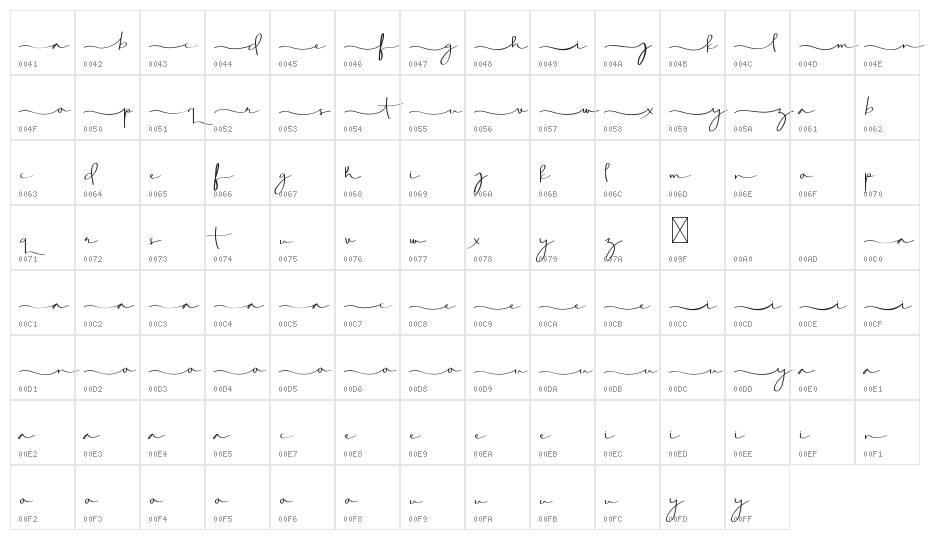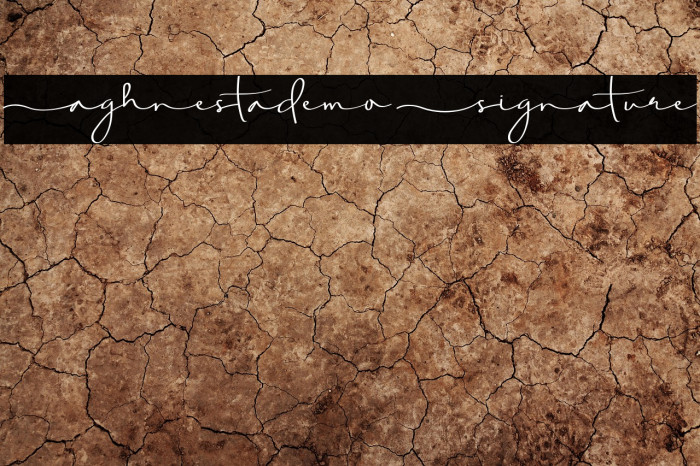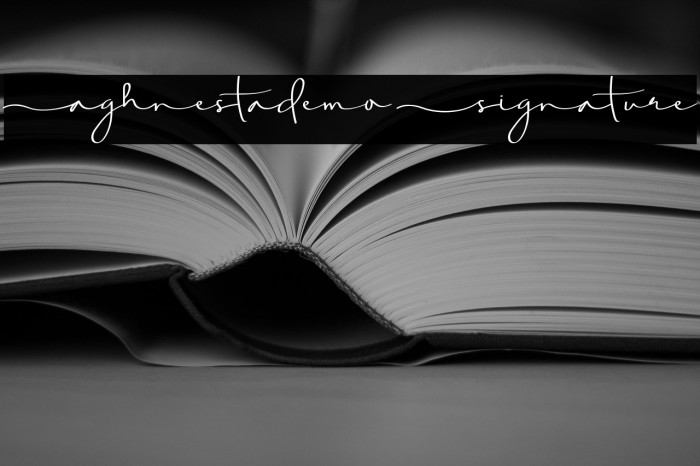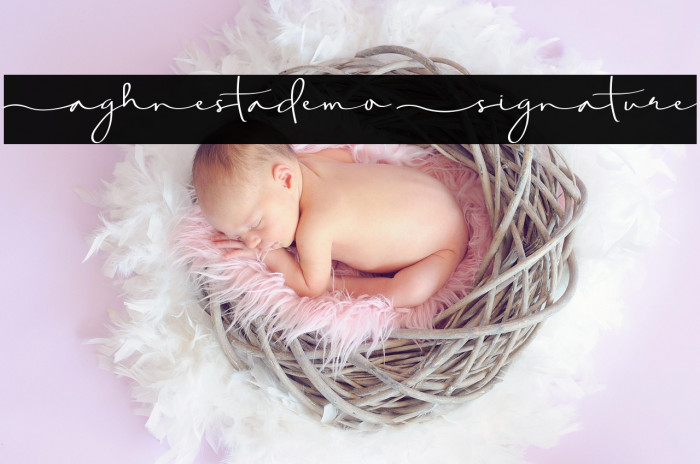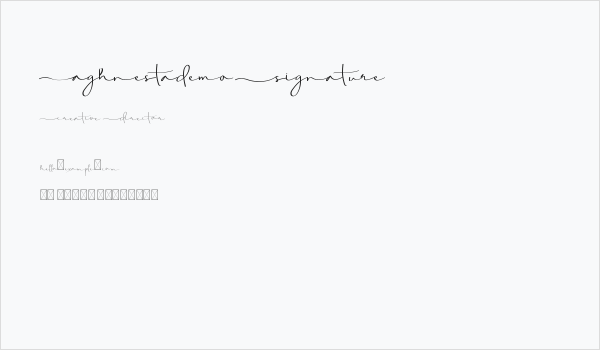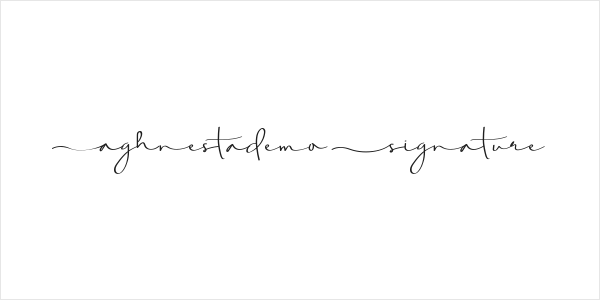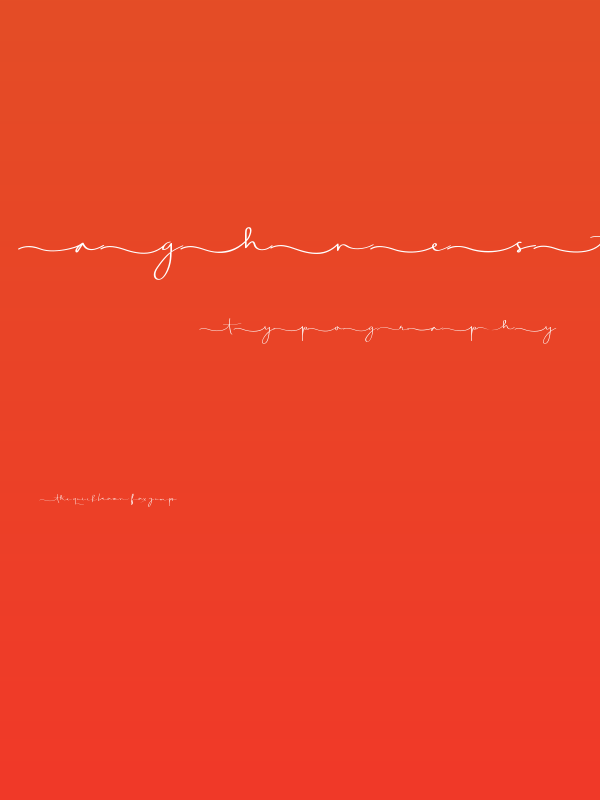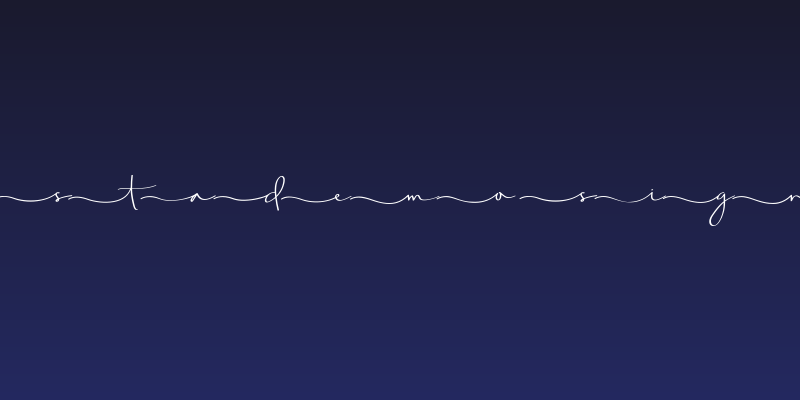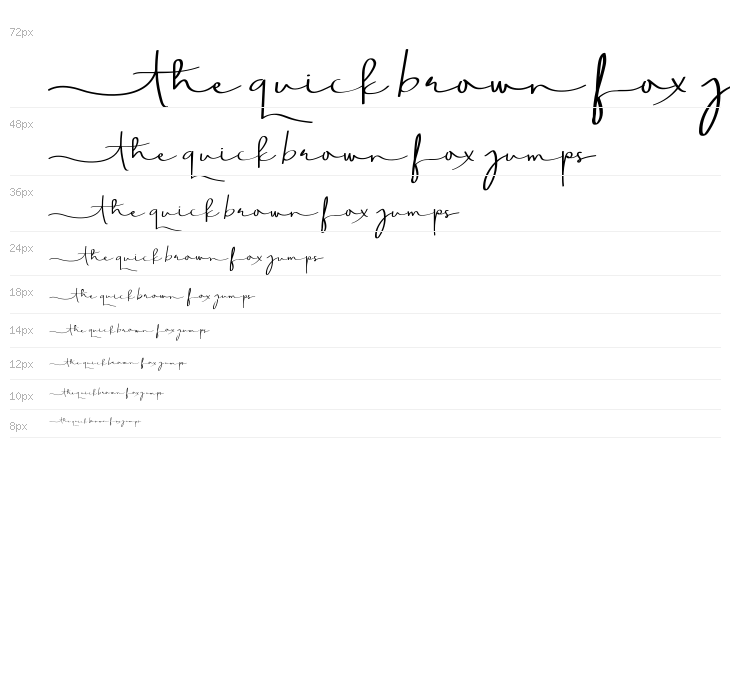
Aghnestademo Signature Font
Aghnestademo Signature Description
This font exudes a sophisticated and elegant handwritten style, characterized by its fluid and continuous strokes that mimic the natural flow of handwriting. The letters are connected seamlessly, creating a cohesive and harmonious appearance. The font features a mix of thick and thin lines, adding a dynamic contrast that enhances its visual appeal. The lowercase letters are particularly expressive, with elongated ascenders and descenders that contribute to its graceful and stylish look. This font is perfect for projects that require a personal touch, such as invitations, greeting cards, and branding materials. Its artistic flair makes it suitable for creative and decorative purposes, where a sense of individuality and charm is desired.
| Proposed Projects | Ideal for invitations, greeting cards, branding materials, and decorative projects. |